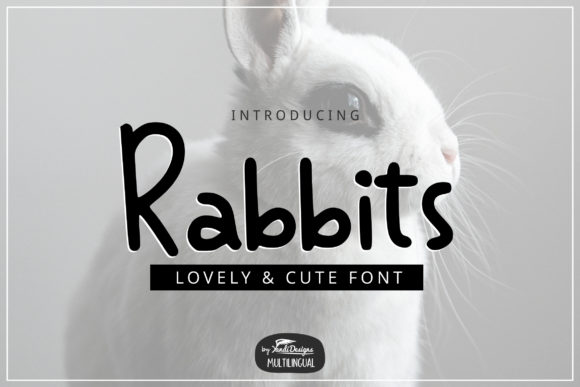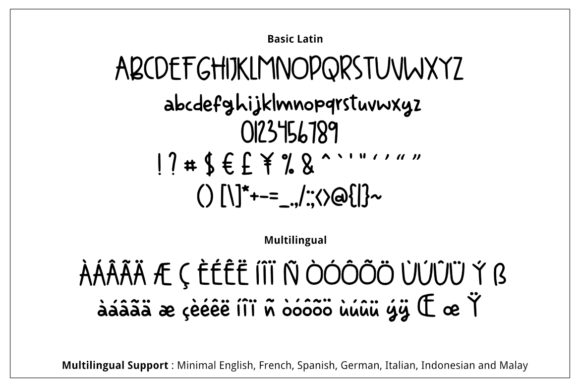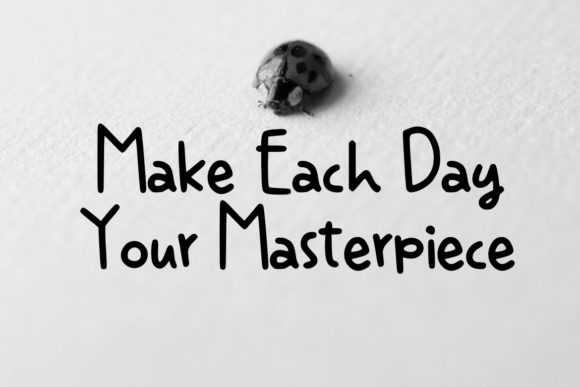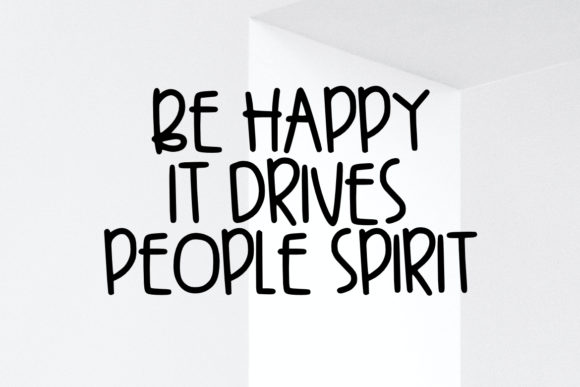
About Rabbits Font
Rabbits is a simple and neat handwritten font. This original look will appeal to a wide range of crafty ideas, from letterheads and titles, to stationery.